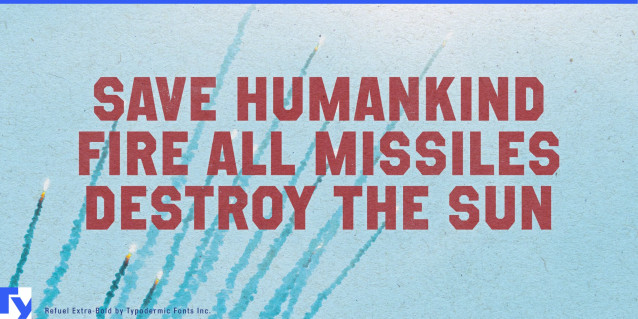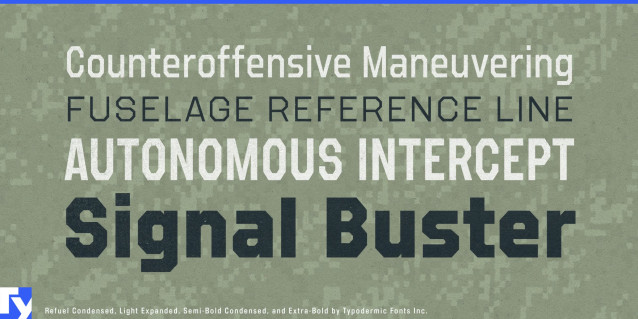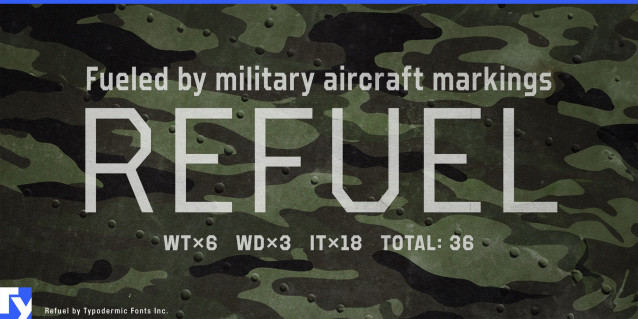
Refuel Font
Refuel is built for designers who want precision engineering without sacrificing versatility. Inspired by mid-century aviation lettering, it channels the clarity and authority of aircraft markings into a modern, fully equipped type system. Its octagonal framework is clean and purposeful, with a balance of utility and style that makes it just as effective in a tight UI as it is on a commanding headline.
With six weights and six widths—each with its own italic—Refuel adapts to the job at hand. The lightest styles deliver crisp, technical clarity, while the heaviest carry the impact of a painted fuselage. Condensed widths pack in information without losing legibility; wide styles add presence and breathing room. Subtle serif treatments on the capital I and lowercase L prevent confusion in dense settings, a small detail that pays big dividends in readability.
Refuel’s italics have a forward-leaning energy that pushes the pace without drifting into novelty. Its extensive language support means it can carry your message across markets without compromise. Whether you’re designing for packaging, sports branding, wayfinding, or digital interfaces, Refuel provides a calibrated set of tools for projects that demand strength, clarity, and range.